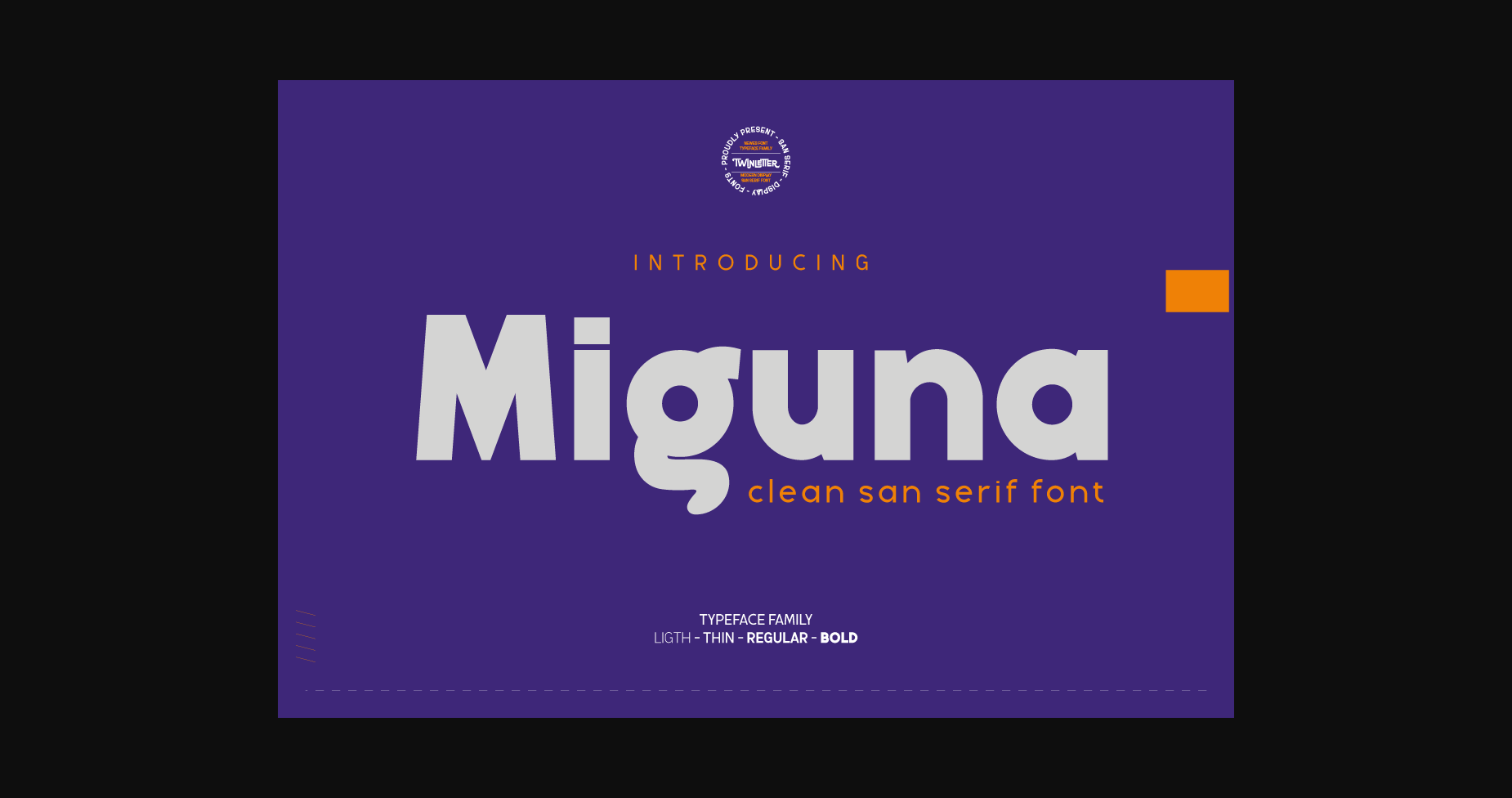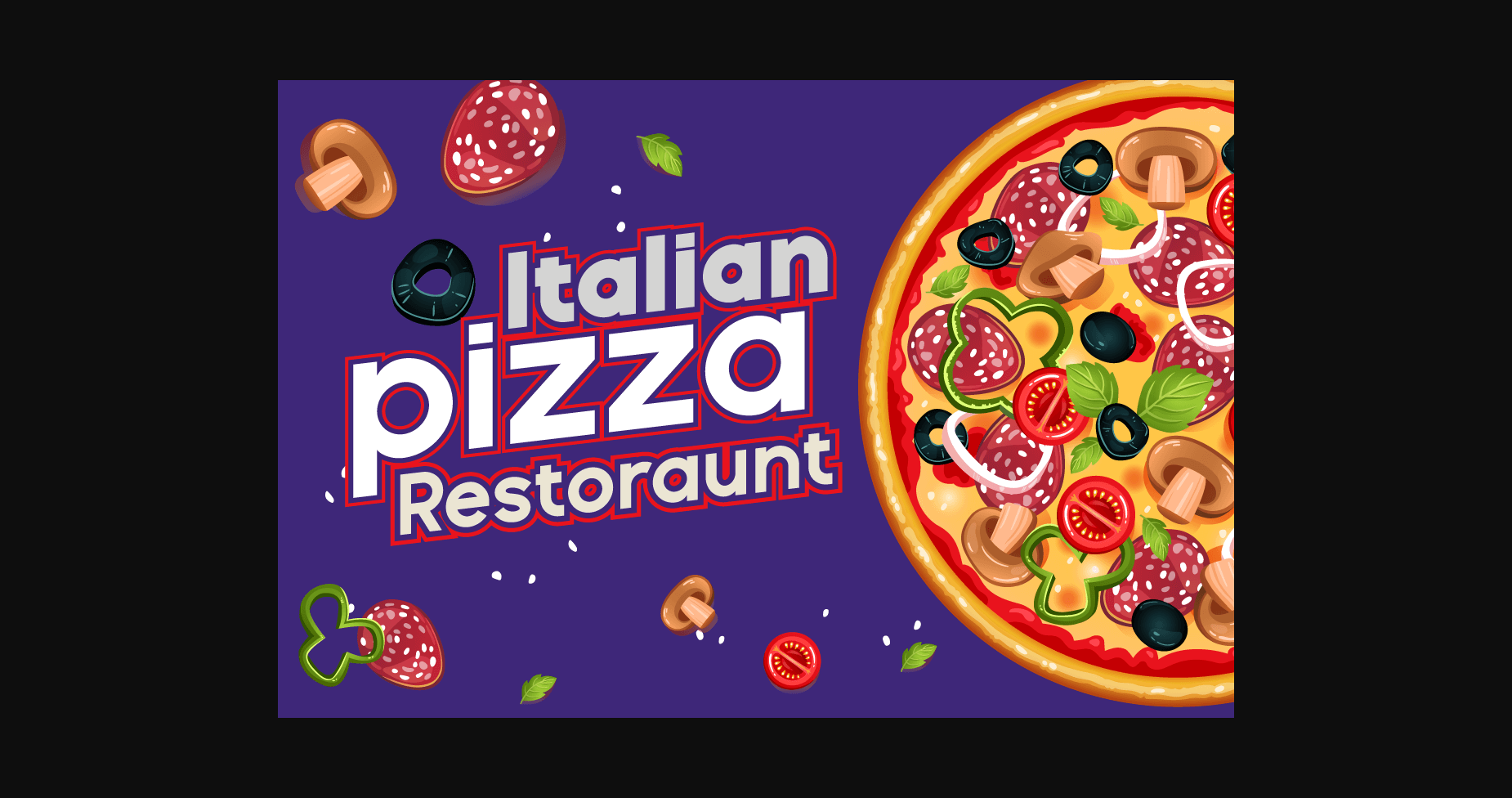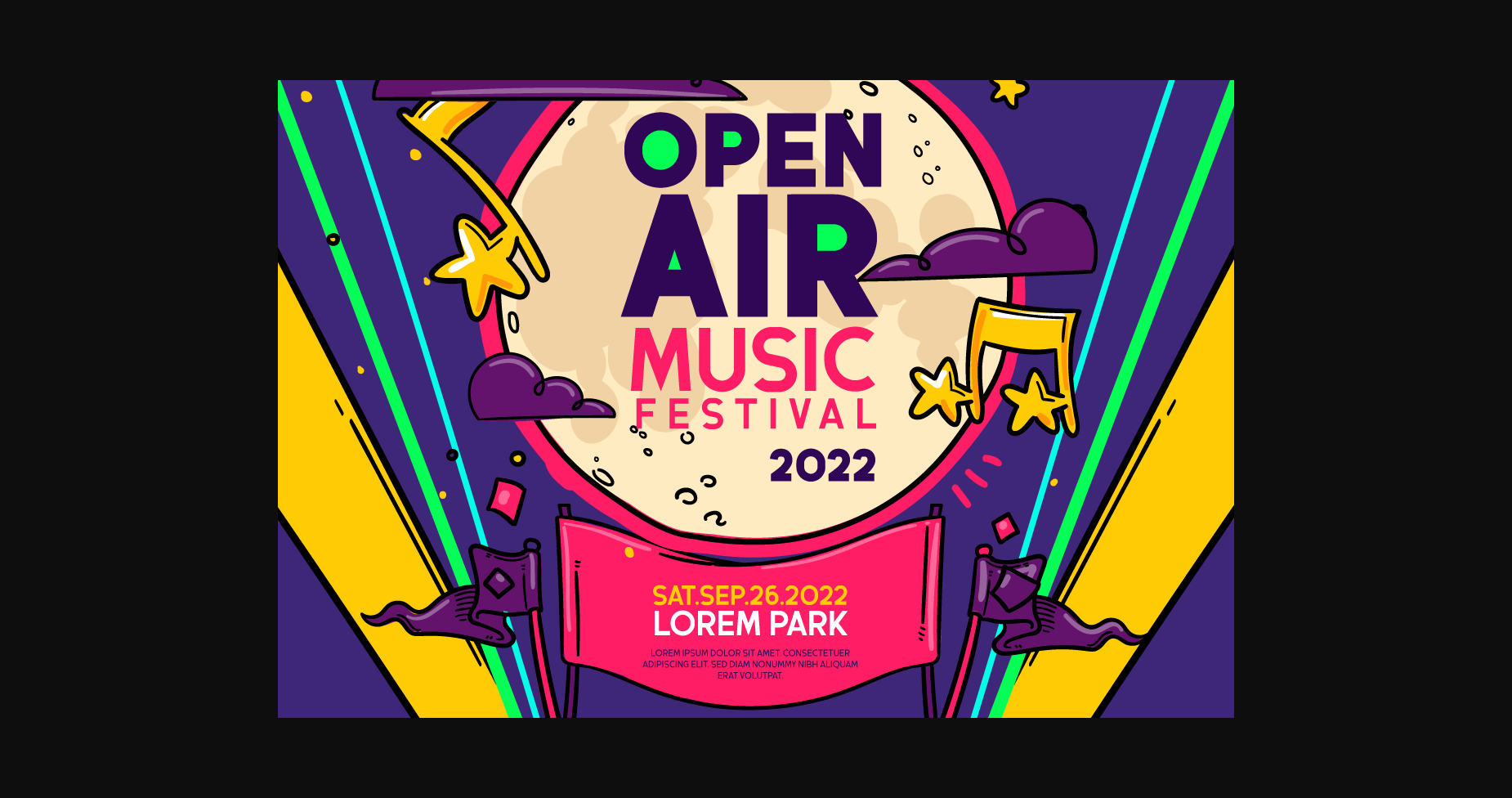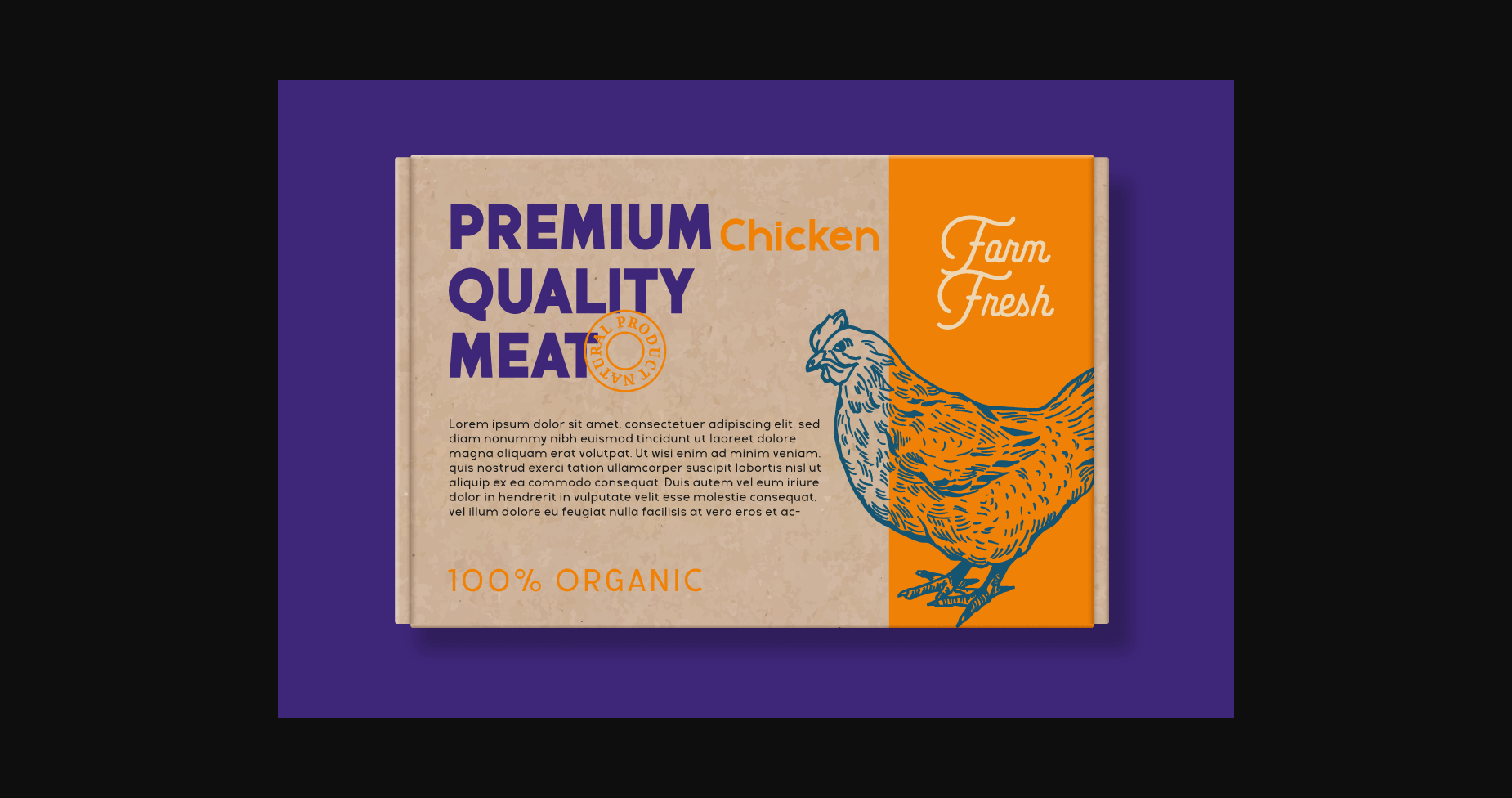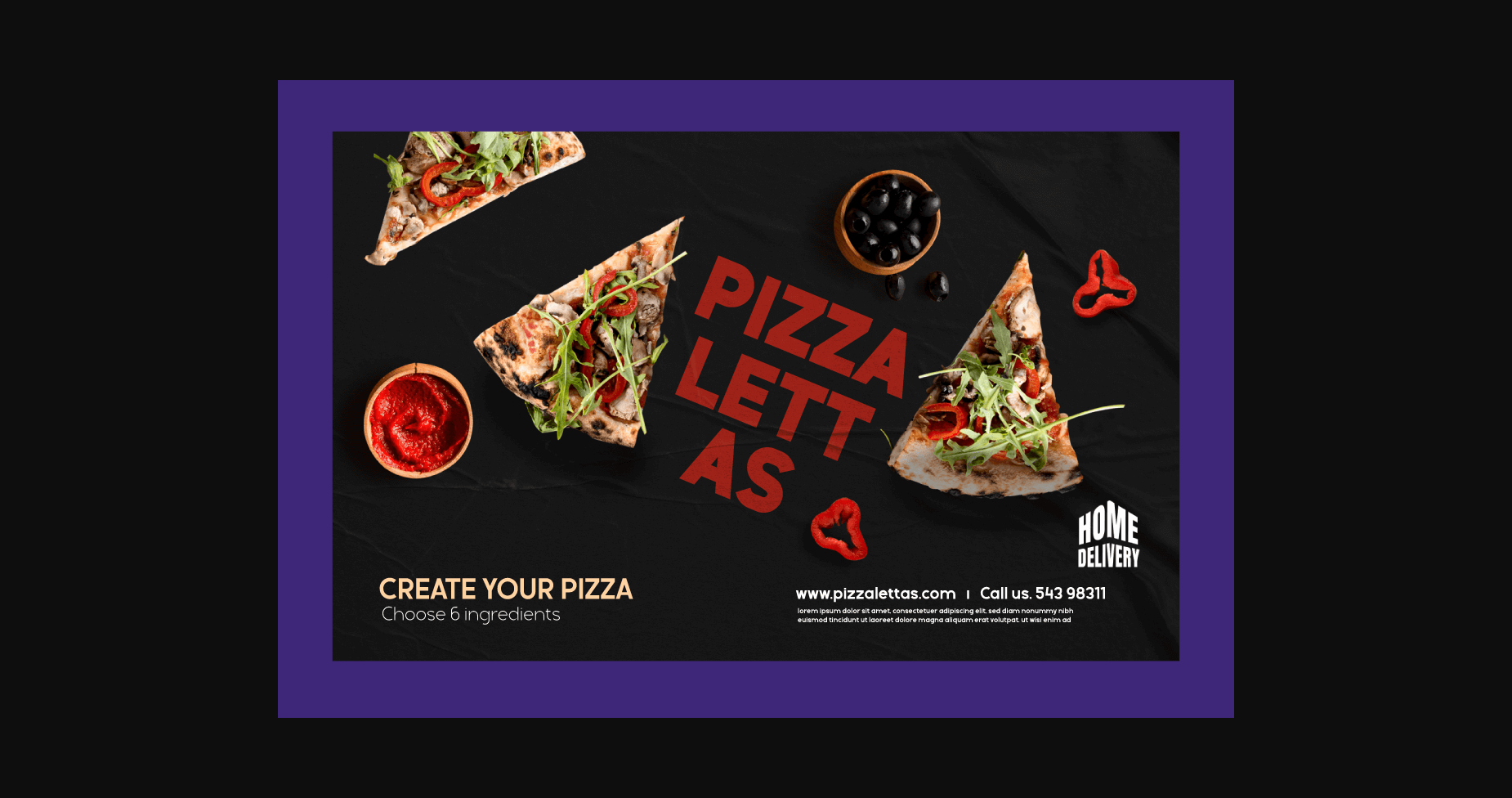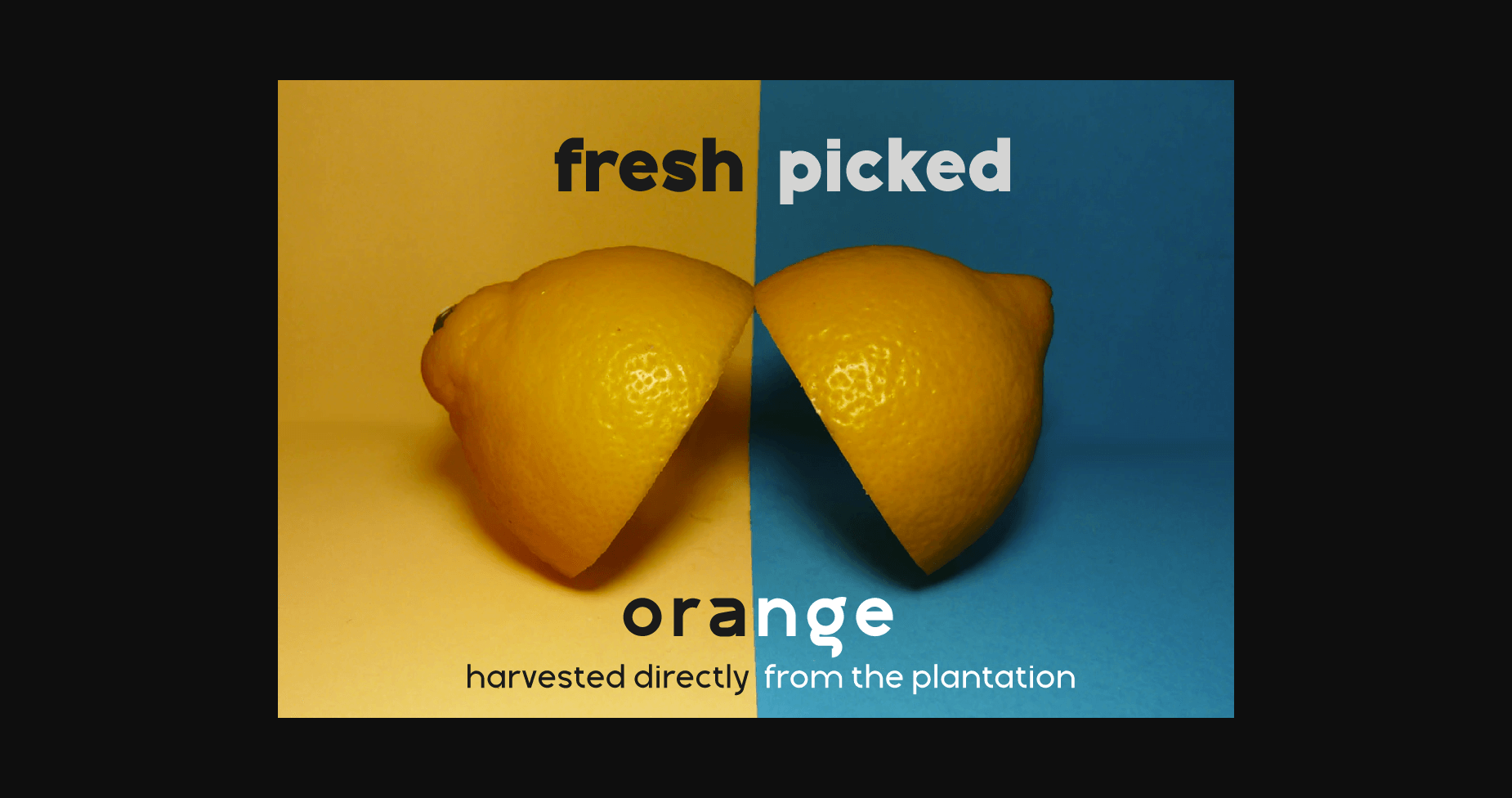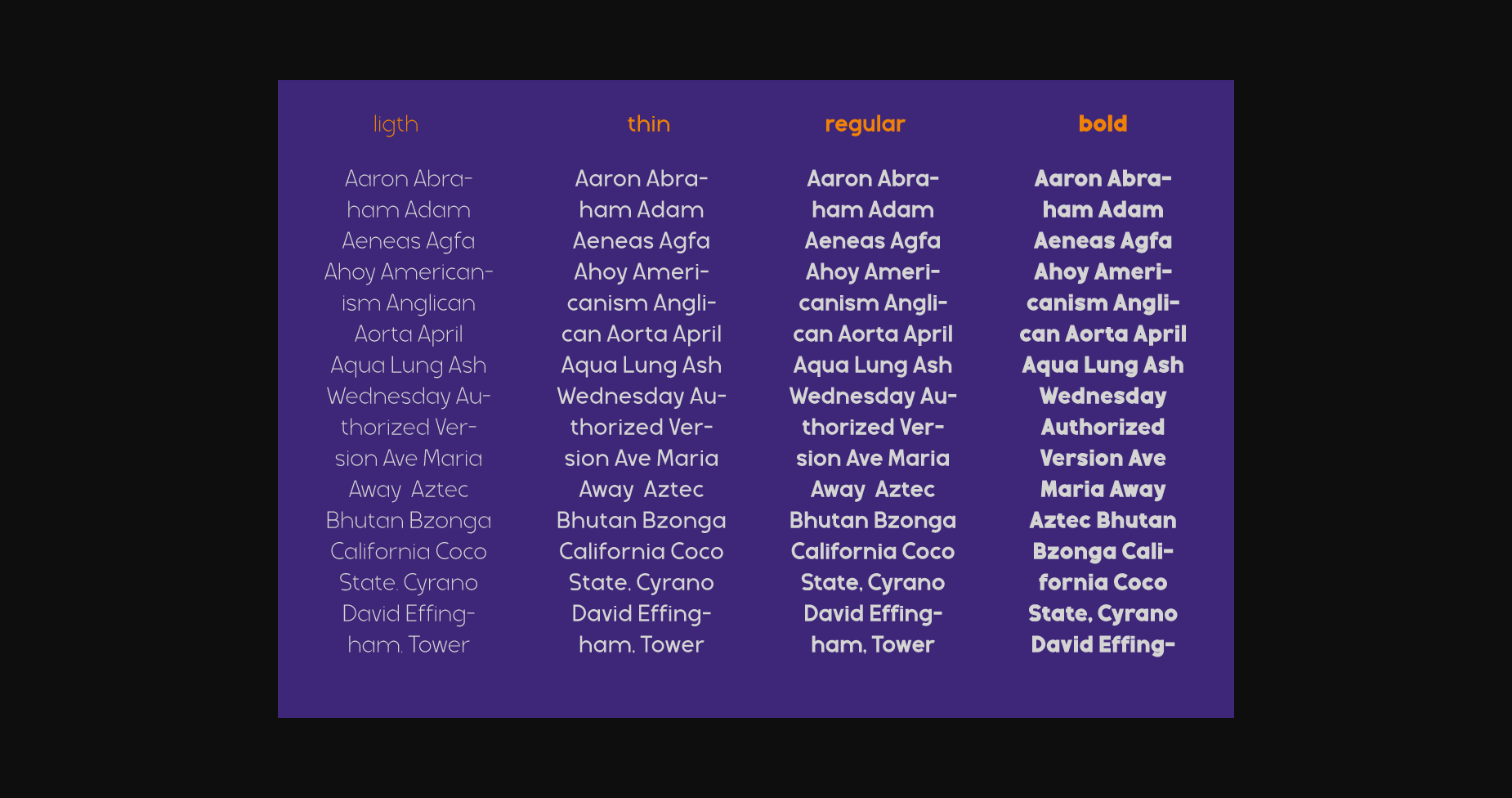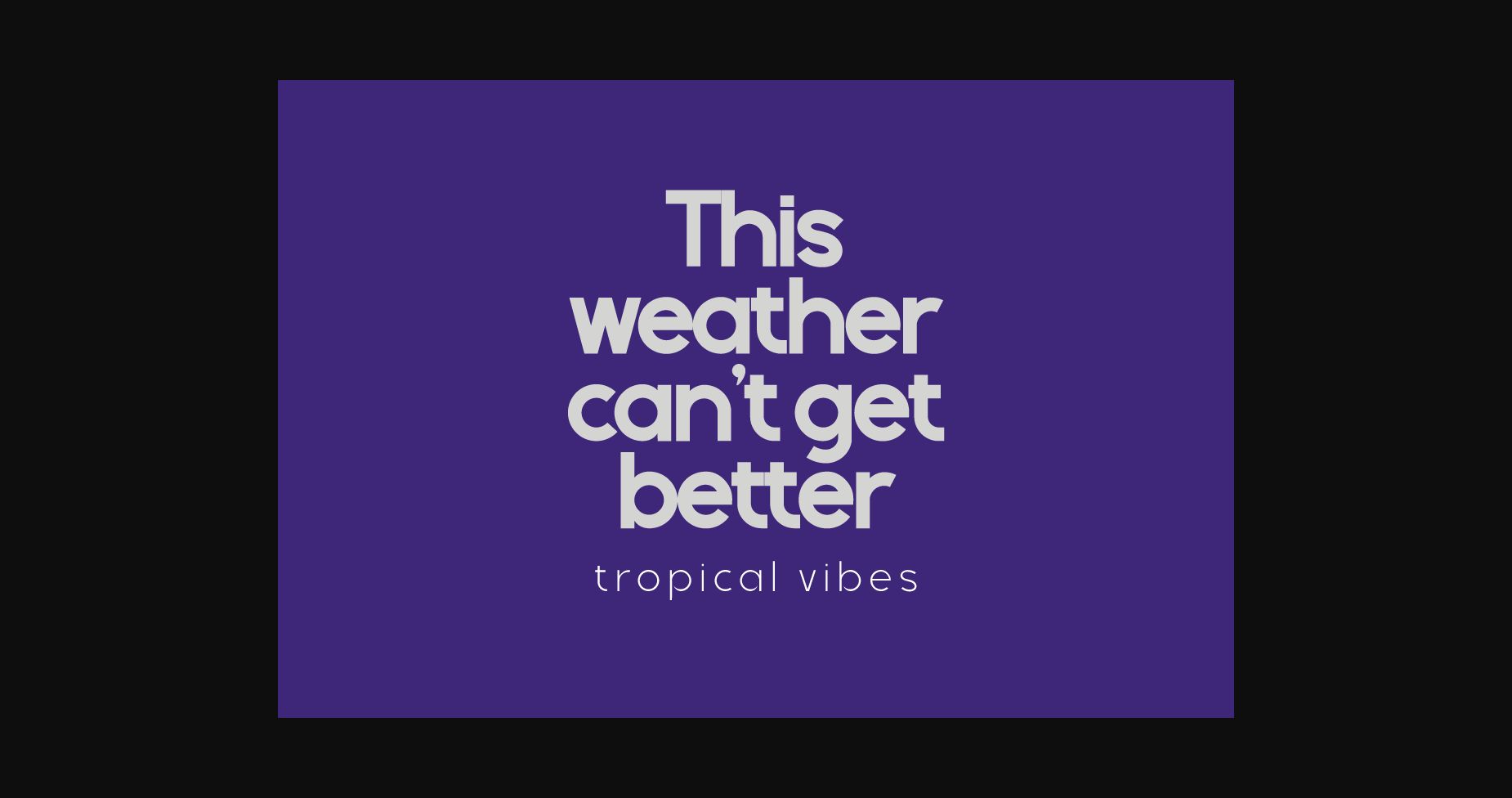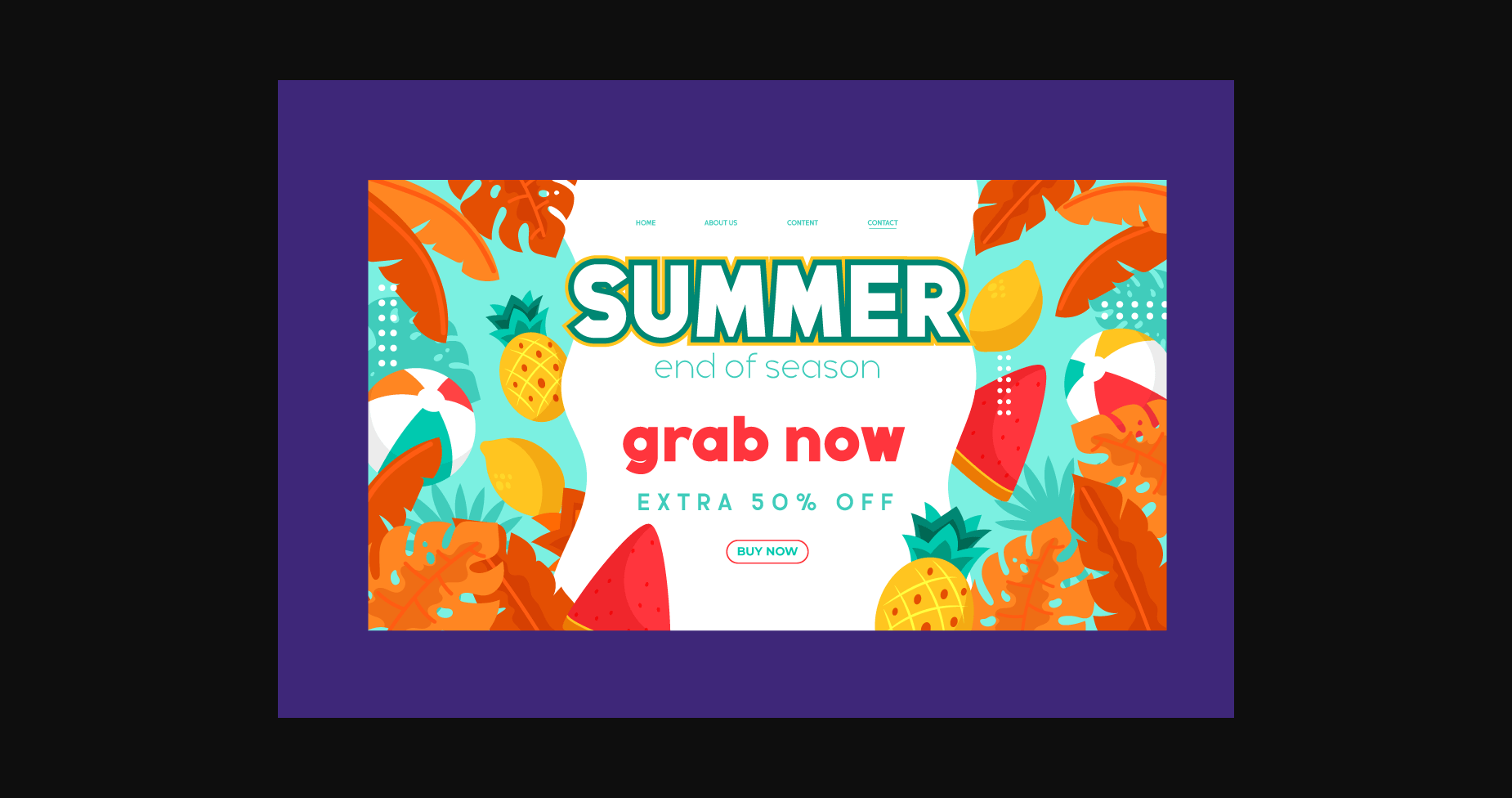
Miguna Font
About Miguna Font
Miguna is a clean and versatile sans serif font. It can easily be matched to an incredibly large set of projects, so add it to your creative ideas and notice how it makes them stand out!